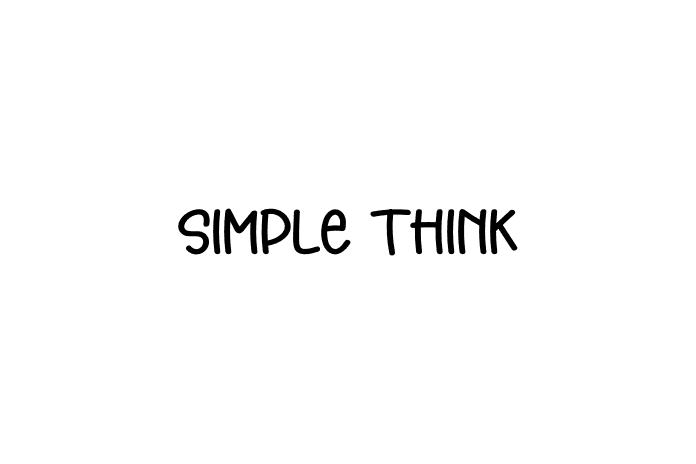
Treatment Font
Treatment Font is a new fresh & modern script with a modern handwritten -style. The font is perfect for custom badge designs to be used for promotions and for apparels, designing templates,brochures, videos ect.